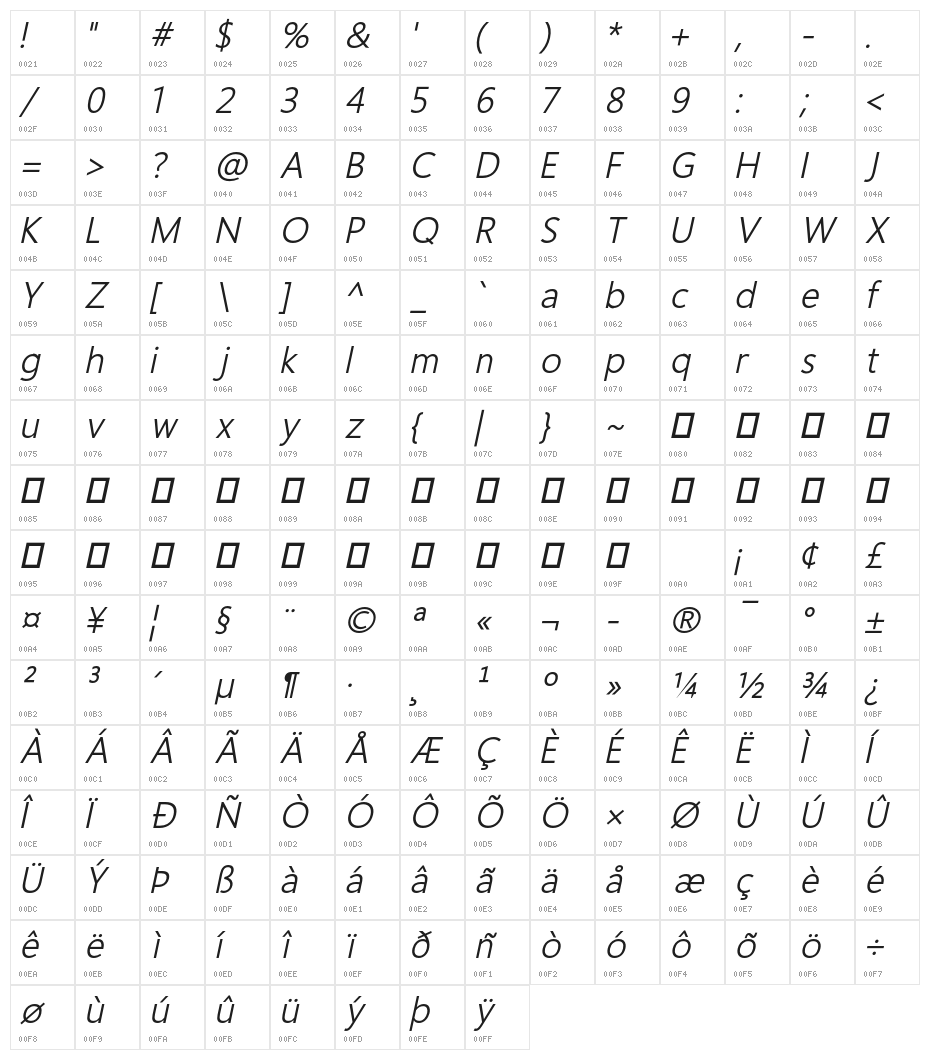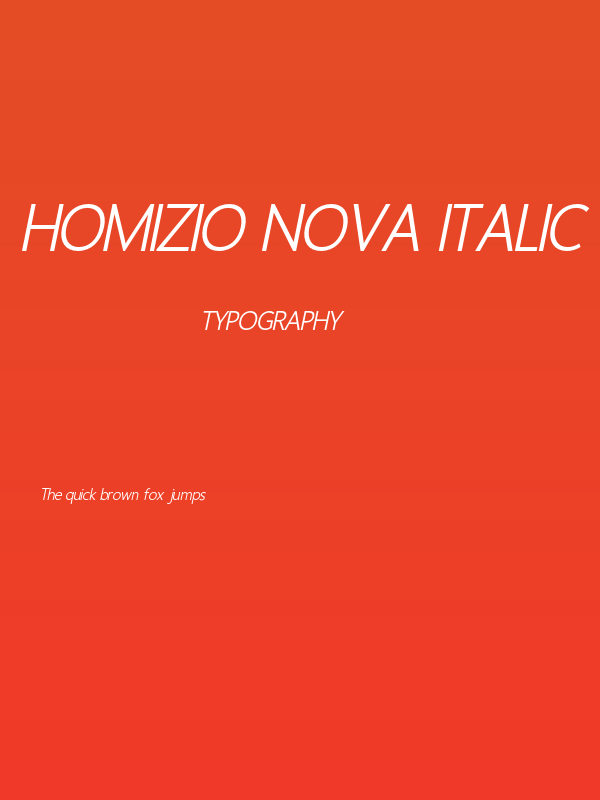
Homizio Nova Italic Font
Homizio Nova Italic Description
This font features a sleek and modern design with a slight italic slant, giving it a dynamic and forward-moving appearance. The characters are clean and well-defined, with a consistent stroke width that maintains readability across different sizes. The uppercase letters are tall and commanding, while the lowercase letters are smooth and rounded, providing a harmonious balance. Numerals are clear and distinct, making them suitable for both text and numerical data. The special characters are crafted with precision, ensuring they integrate seamlessly with the rest of the typeface.
This is Homizio Nova, a sans-serif font designed by Alvaro Thomaz.
| Proposed Projects | Ideal for branding, advertising, and editorial design where a modern and professional look is desired. |